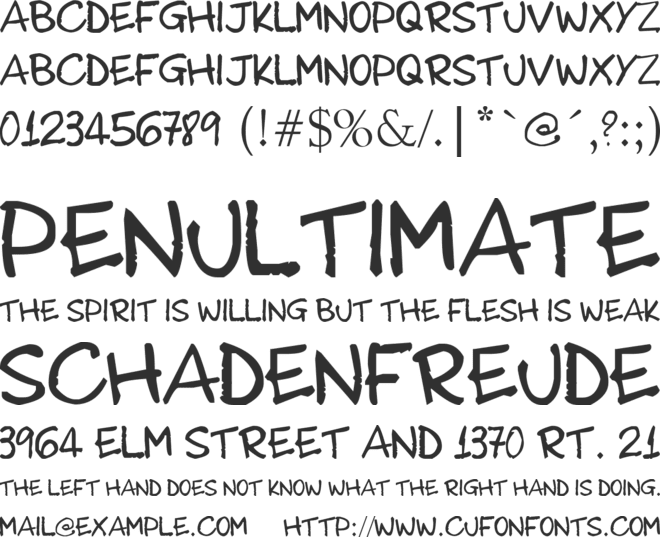
Svn Billy Font
Svn Billy Font - ← back to family page. The billy family contains three individually useful and fun fonts. When combined, the energy and.
The billy family contains three individually useful and fun fonts. When combined, the energy and.